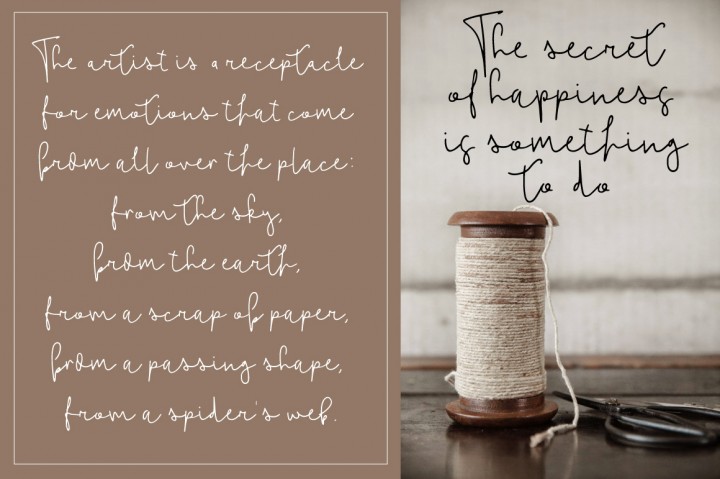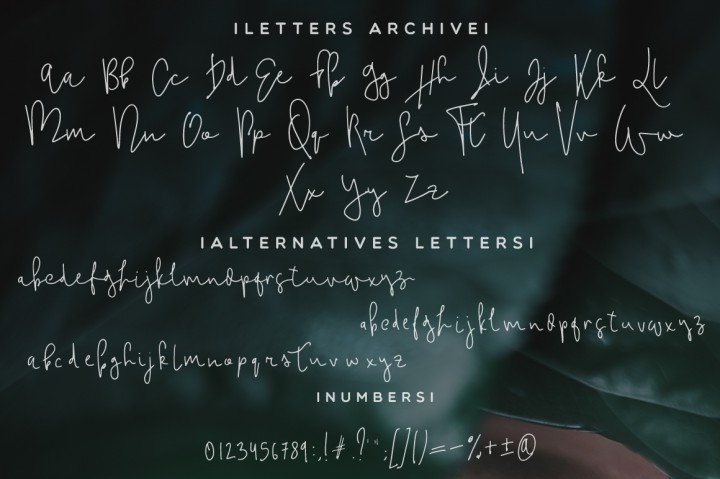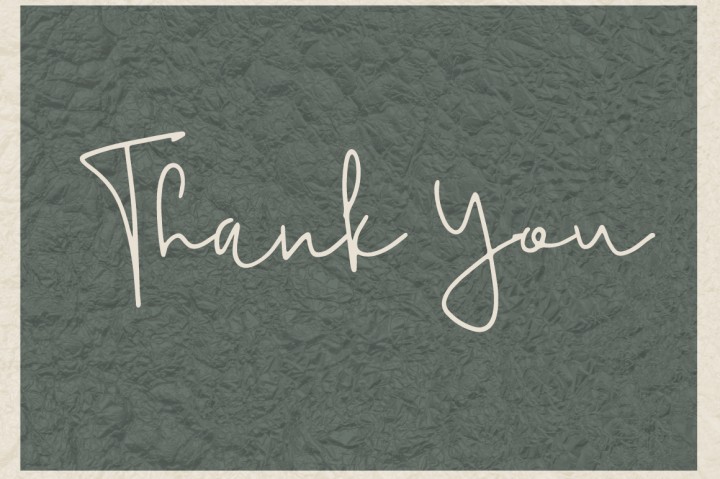
Hello Neighbor Script Font
Introducing Hello Neighbor Script Font! Hello Neighbor designed by Mellow Design Lab , this is a premium font, are sold on thehungryjpeg, but it was great, it is free today for download. Hello Neighbor! A handwritten modern font with signature style and quick strokes. Also this font included alternative letters. Very suitable for greeting cards, branding materials, business cards, quotes, posters, and more